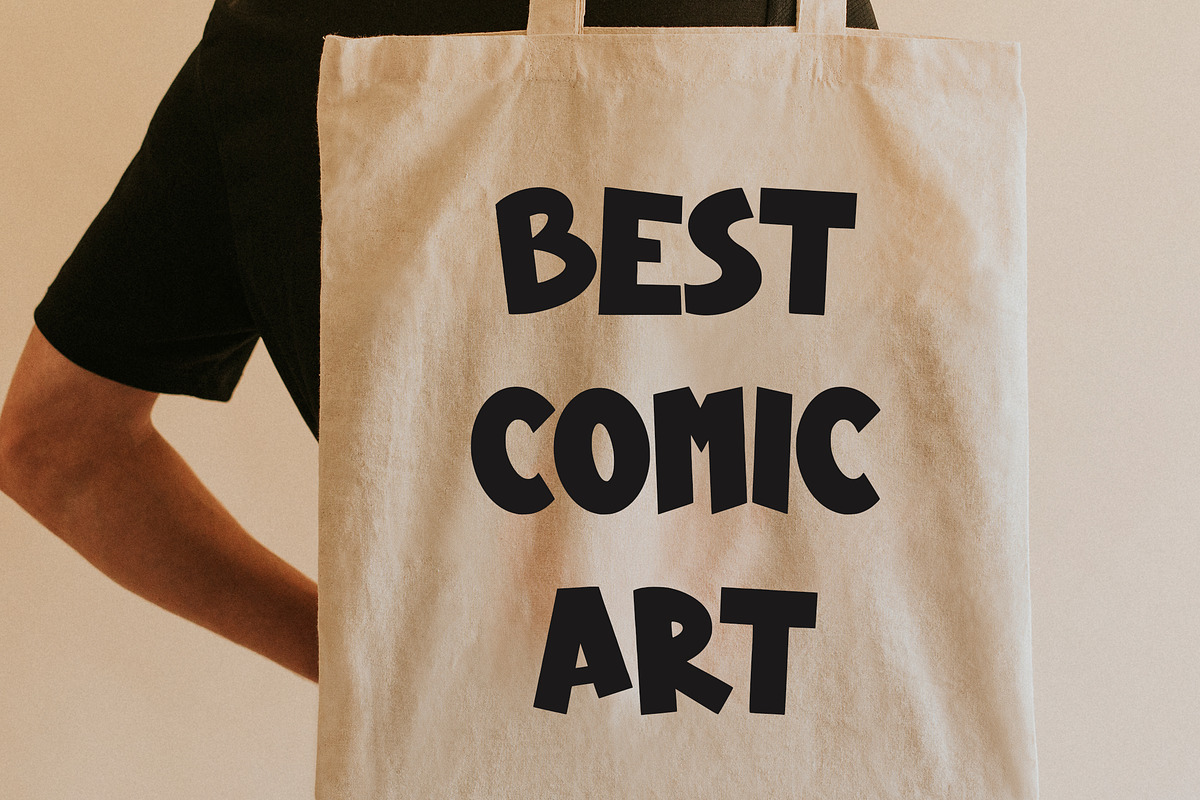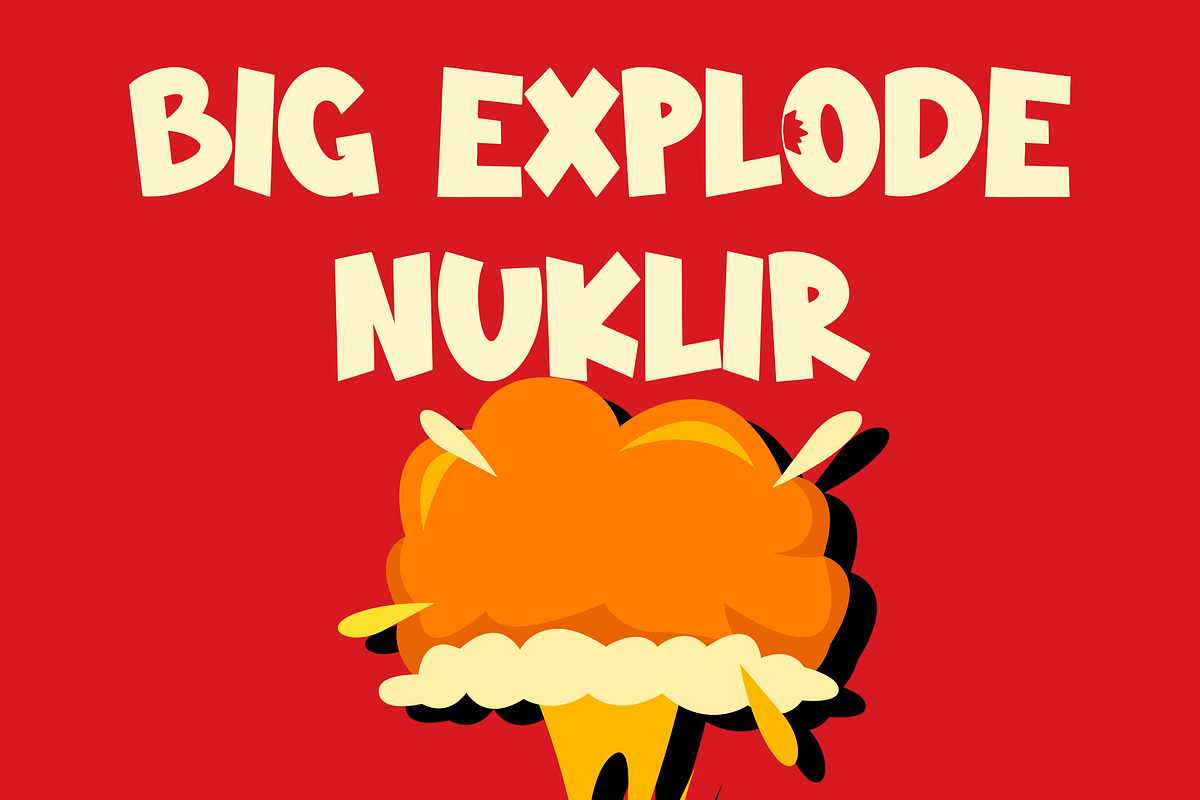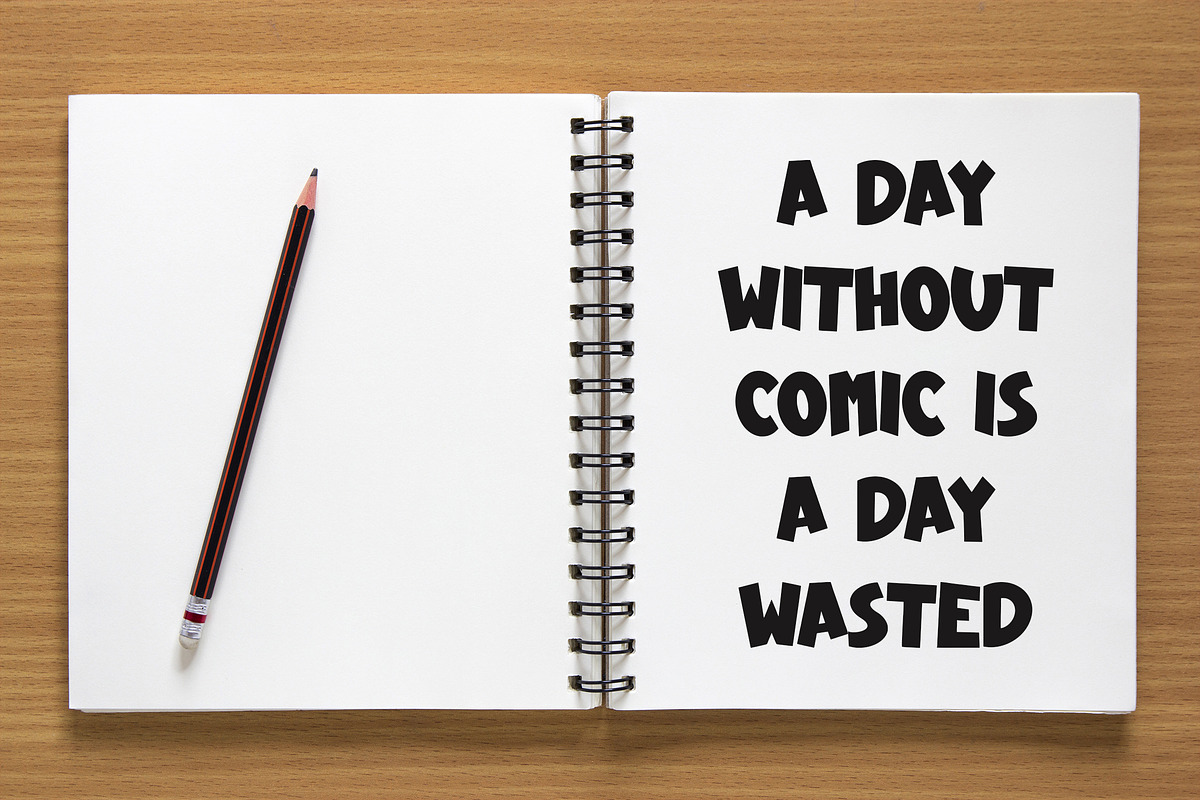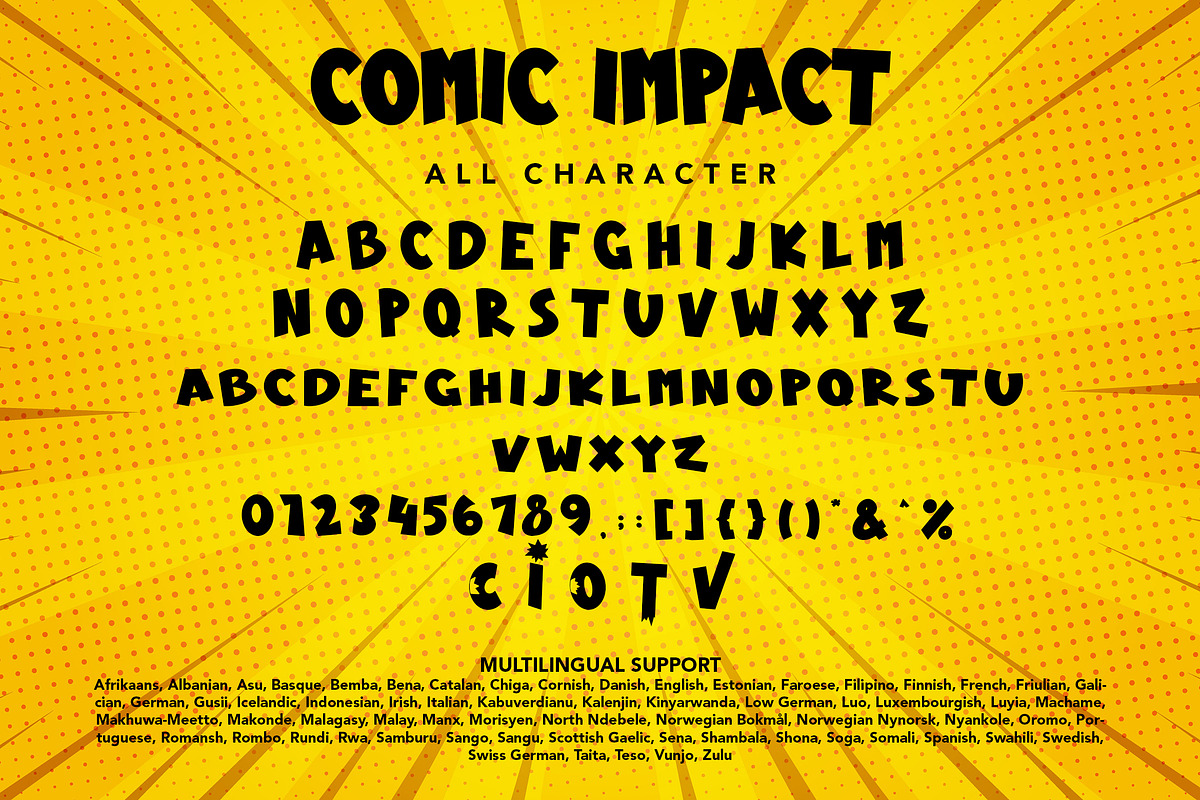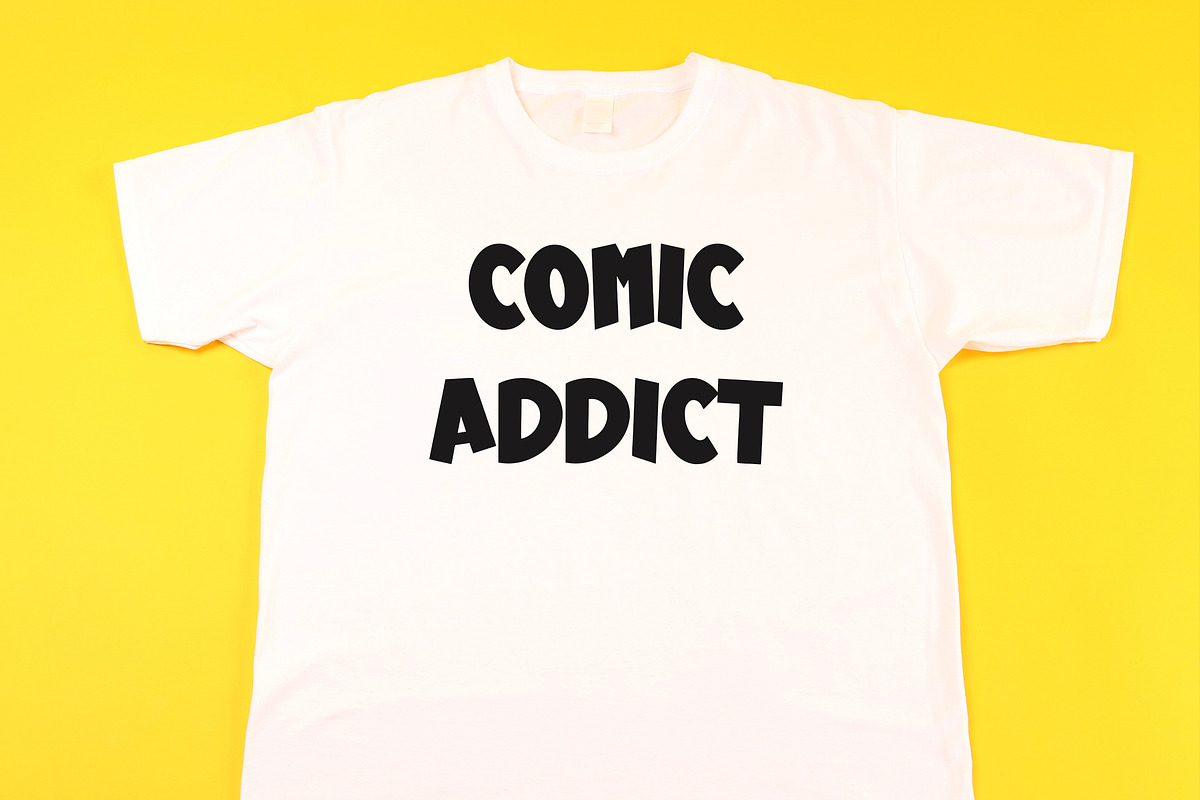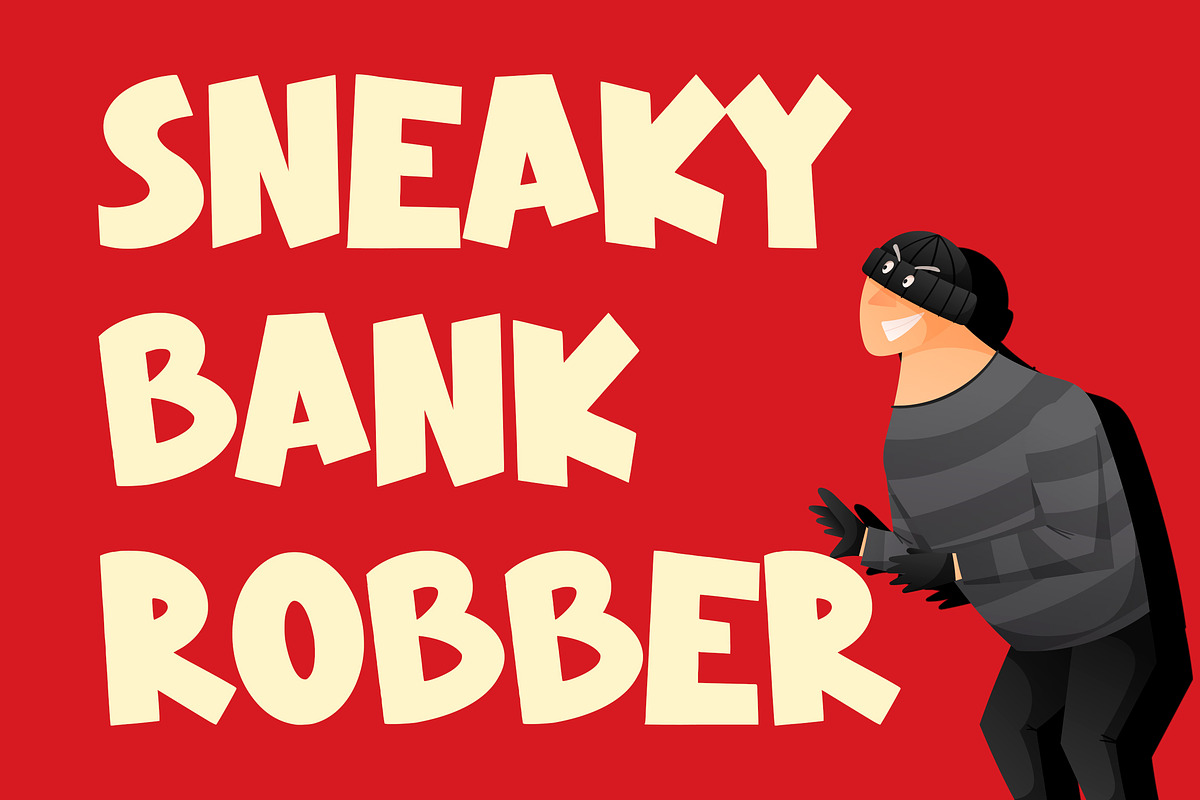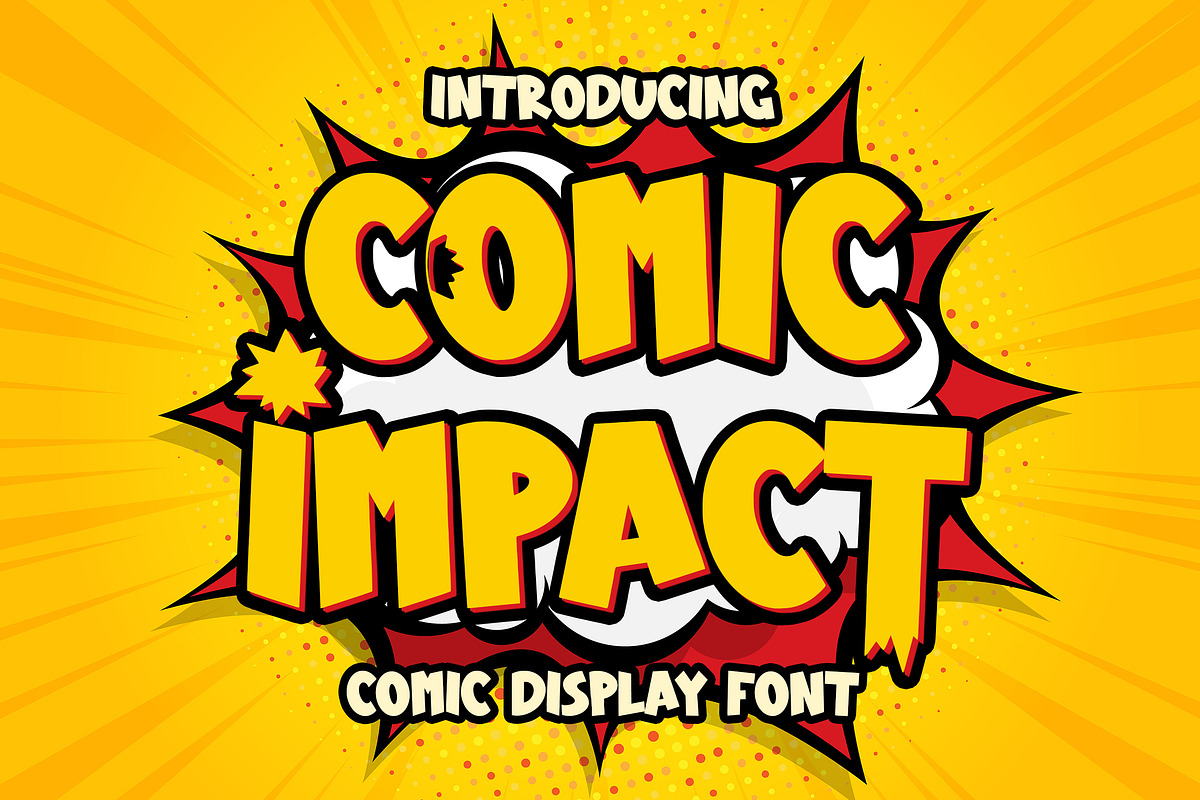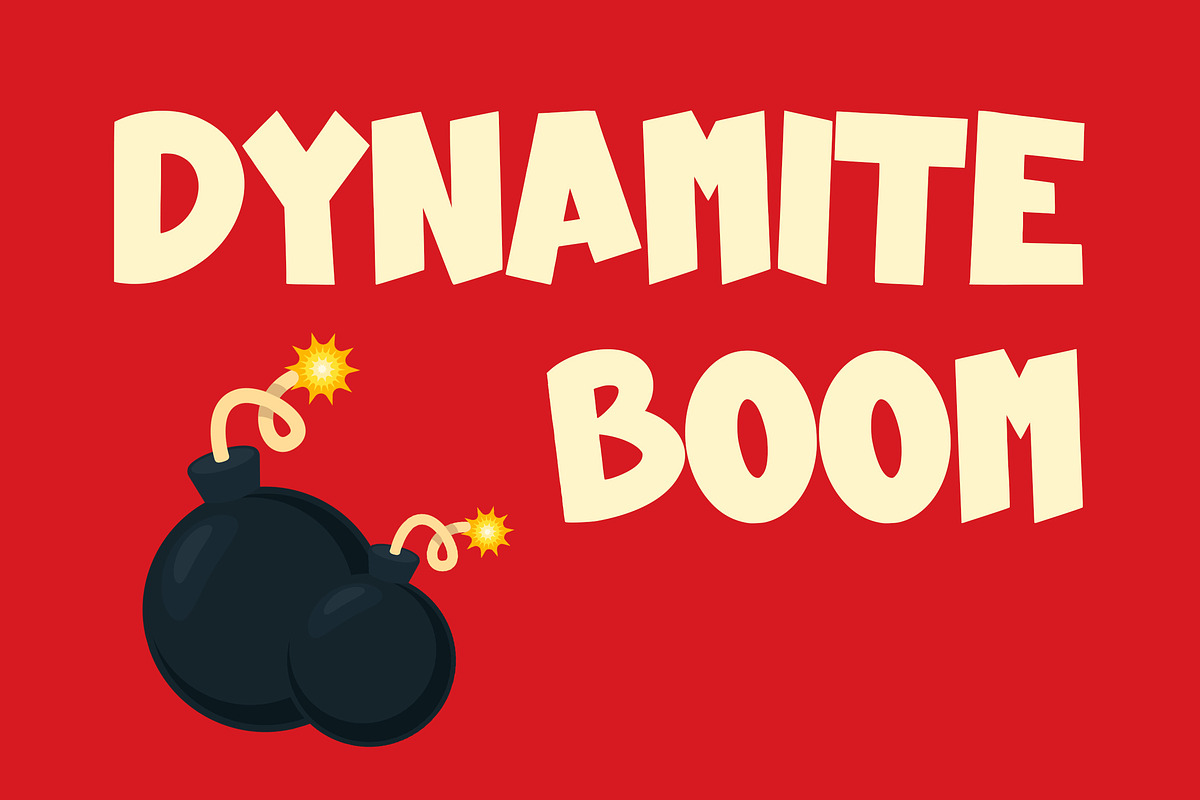
Comic Impact
Comic Impact is a Comic Display Font. A typeface designed to showcase characters that are fun, expressive, and full of life, similar to the handwritten style often found in comics. With bold, linear, and often eccentric shapes, this font is designed to make a strong, clear impression when used in titles, typical comic text, or graphic designs with a comic feel. The power of this font lies in its ability to convey emotion, laughter, and visual dynamics through each letter. With bold, bold lines and characters depicting action scenes, the Comic Display Font creates an entertaining and iconic atmosphere, making it suitable for creative projects that want to convey a comic touch in their design.